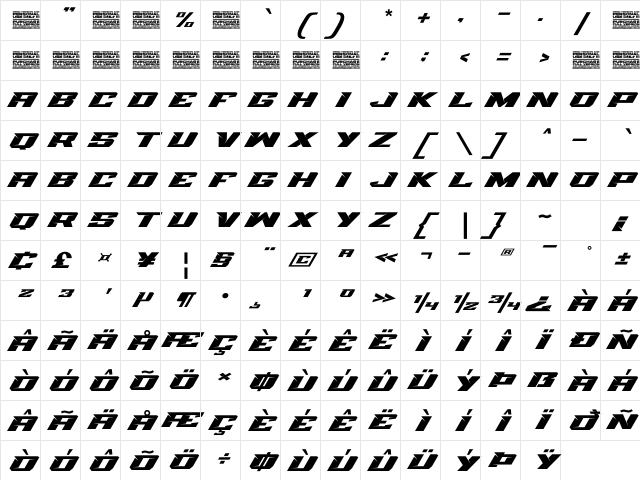
Bring Race Regular Free Font
Bring Race Regular
Designer: Mulia Yanto
Complete Bring Race Regular glyph index. Displaying only characters natively supported by Bring Race Regular font.
Design Context for Bring Race
Bring Race is a composed and adaptable typeface that performs quietly and consistently across a wide range of design contexts.